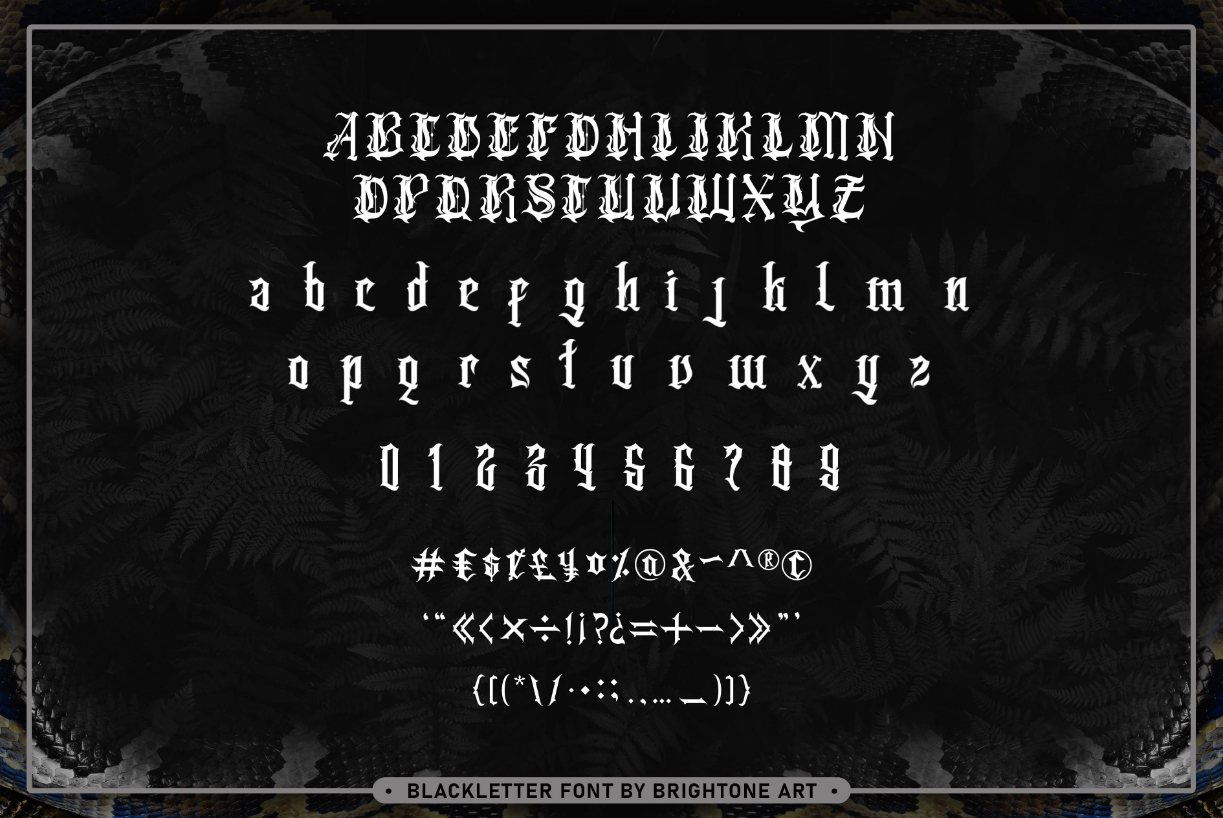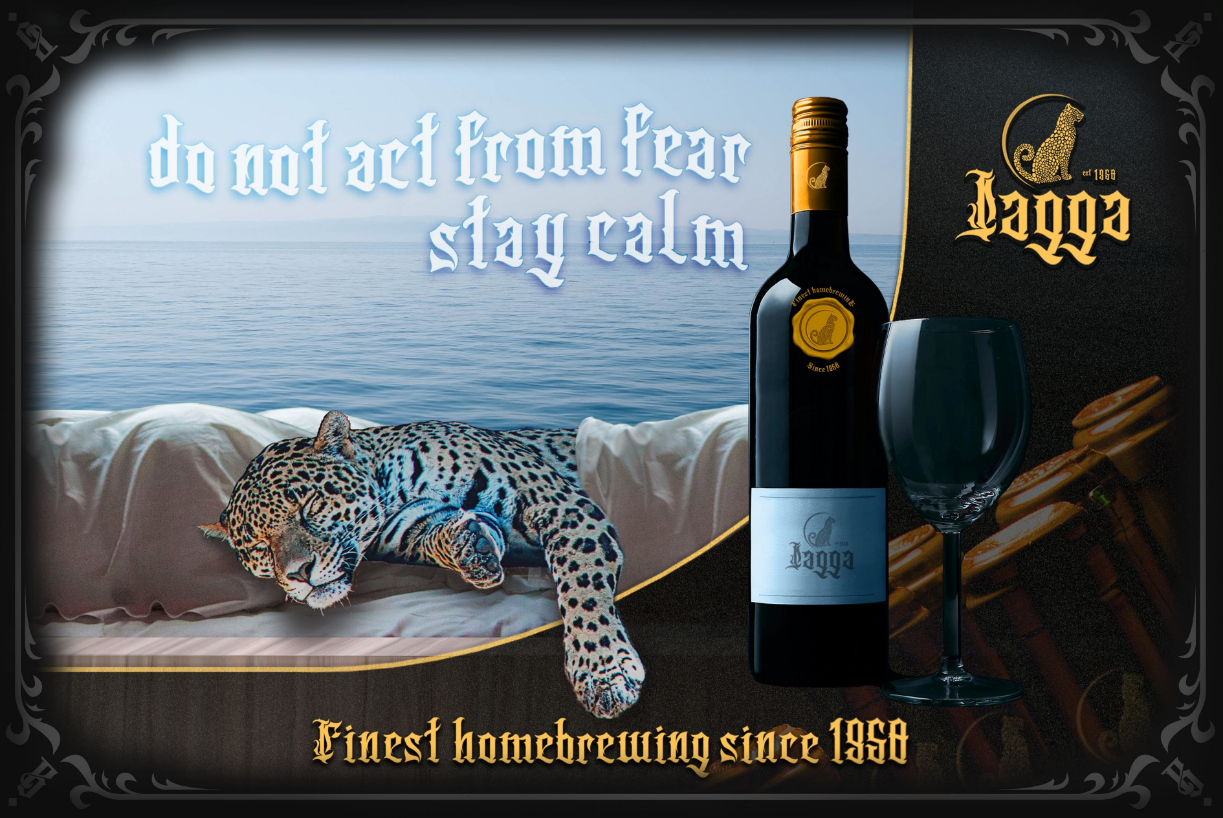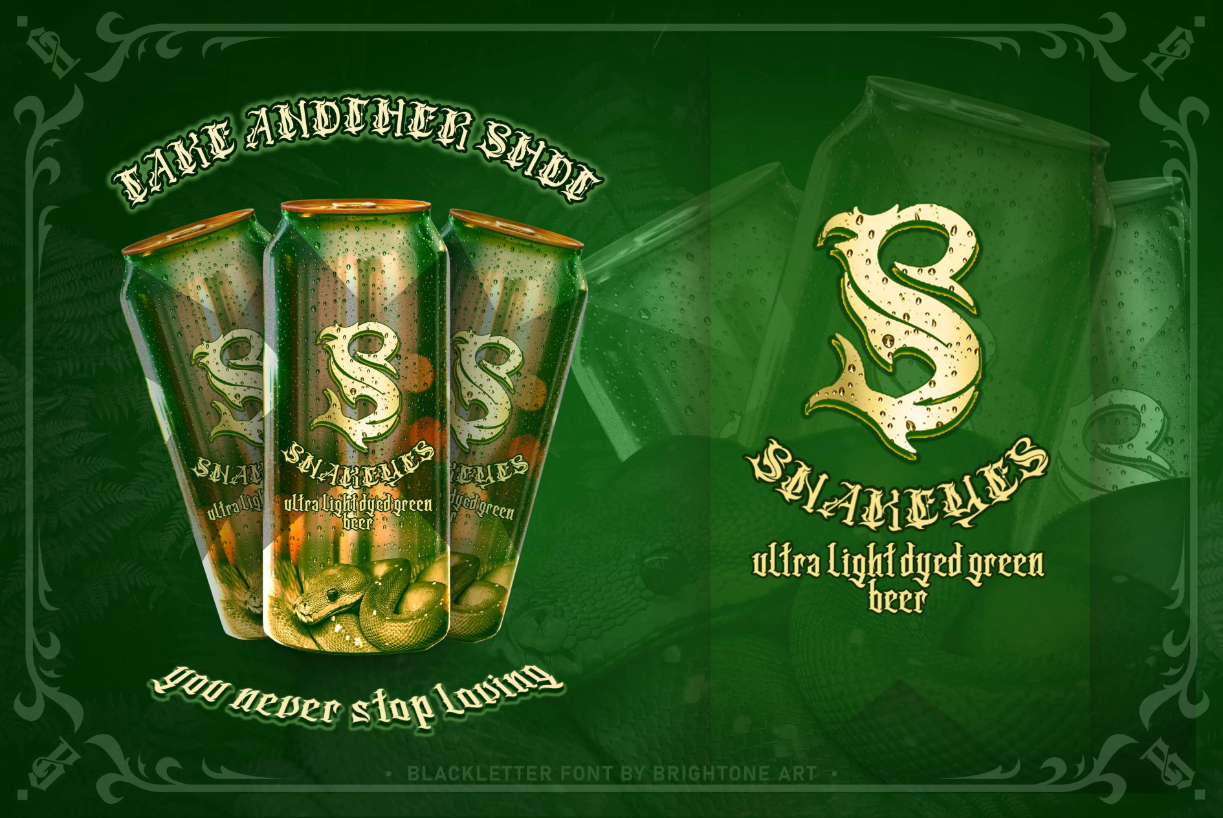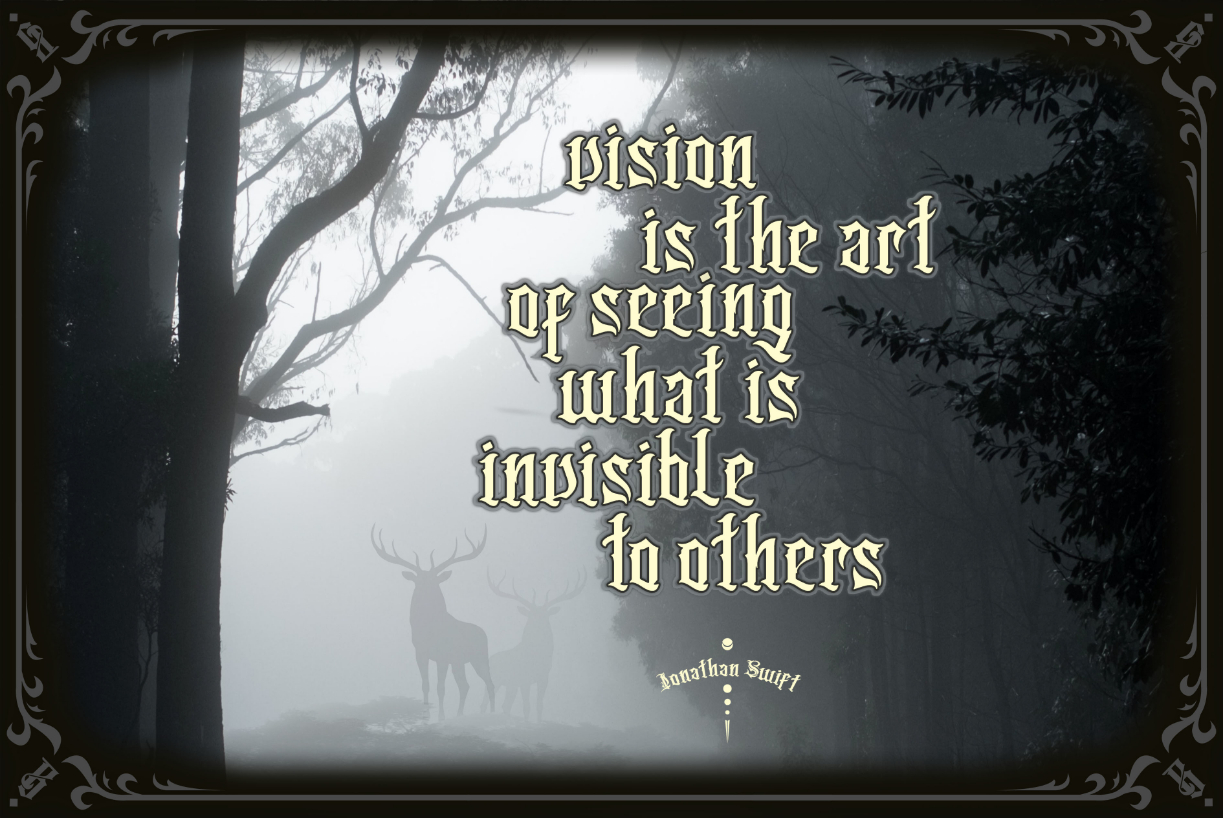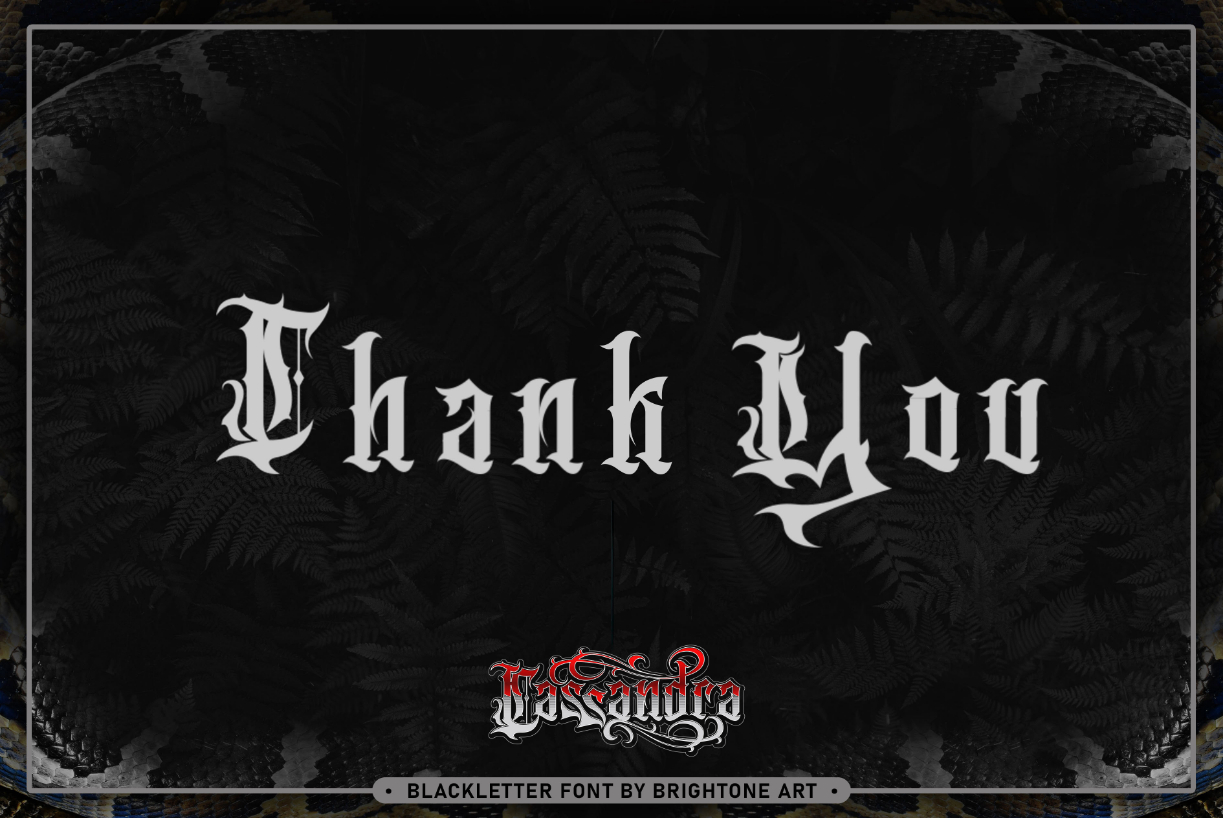
Cassandra Font
About Cassandra Font
Cassandra is a bold and authentic blackletter font. Add this assertive font to your formal designs and notice how they instantly stand out.